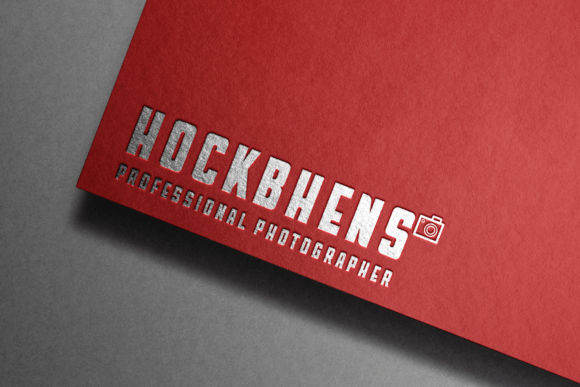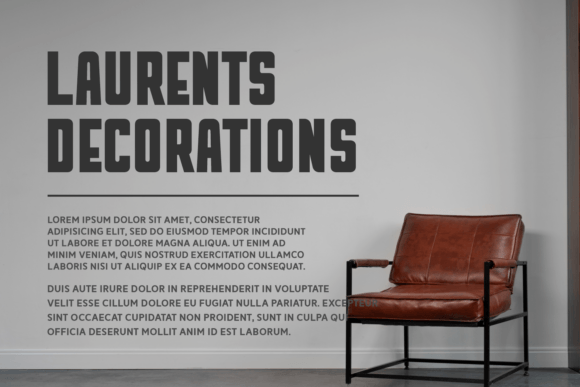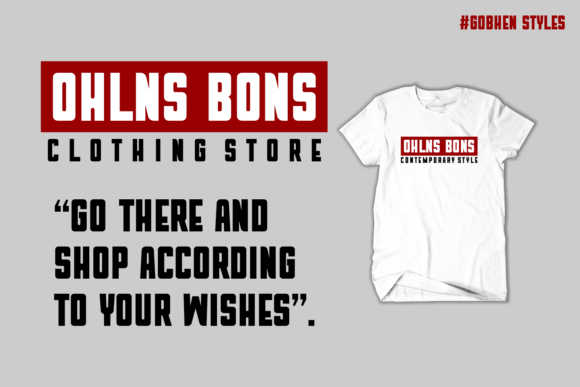
I still remember the frustration of working on a branding project for a trendy new coffee shop. My client wanted a font that was modern, elegant, and highly legible. I spent hours scouring the internet for the perfect match, but nothing seemed quite right. That was until I stumbled upon Gobhen Styles. This modern sans-serif font has been a game-changer for my design workflow, and I’m excited to share its features and benefits with you.
First Impressions: What I Love About Gobhen Styles
Gobhen Styles has quickly become a go-to font in my design arsenal. Here are some of the things I love about it:
- ✨ Clean lines and balanced proportions: Gobhen Styles has a sleek, contemporary aesthetic that’s perfect for branding, headlines, and logos.
- ✅ High readability: The font is incredibly legible, even at small sizes, making it ideal for body text and captions.
- 💡 Versatility: Gobhen Styles comes in multiple weights and styles, allowing you to use it for a wide range of design projects.
- 🎨 Sophistication: The font has an undeniable air of sophistication, making it perfect for professional and creative projects.
While Gobhen Styles is an excellent font, it’s not without its quirks. Here are a few things to keep in mind:
- 🤔 Limited character set: Some users have noted that the font could benefit from a more extensive character set, particularly for non-English languages.
- ⚠️ Occasional kerning issues: As with any font, you may encounter kerning issues in certain situations. Be sure to adjust the kerning manually as needed.
The Story Behind Gobhen Styles
Gobhen Styles was designed with the modern designer in mind. The font’s creator sought to craft a typeface that was both elegant and versatile, with a focus on clean lines and balanced proportions. The result is a font that’s perfect for a wide range of design projects, from branding and headlines to logos and web design.
| Font Name | Gobhen Styles Font |
| What is Gobhen Styles? | Gobhen Styles is a modern sans-serif font designed for branding, headlines, logos, and web design. |
| Is Gobhen Styles suitable for body text? | Yes, Gobhen Styles is highly legible and suitable for body text, even at small sizes. |
| Is Gobhen Styles available in multiple weights? | Yes, Gobhen Styles comes in multiple weights and styles, allowing you to use it for a wide range of design projects. |